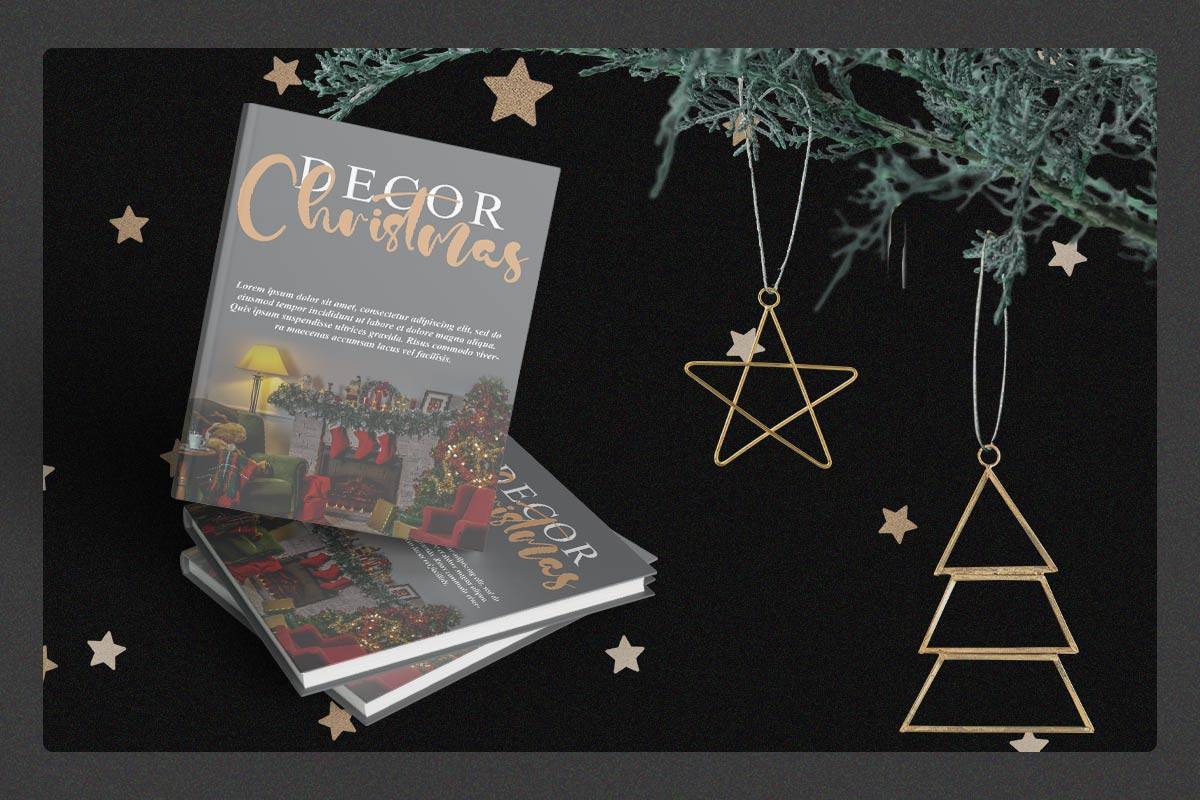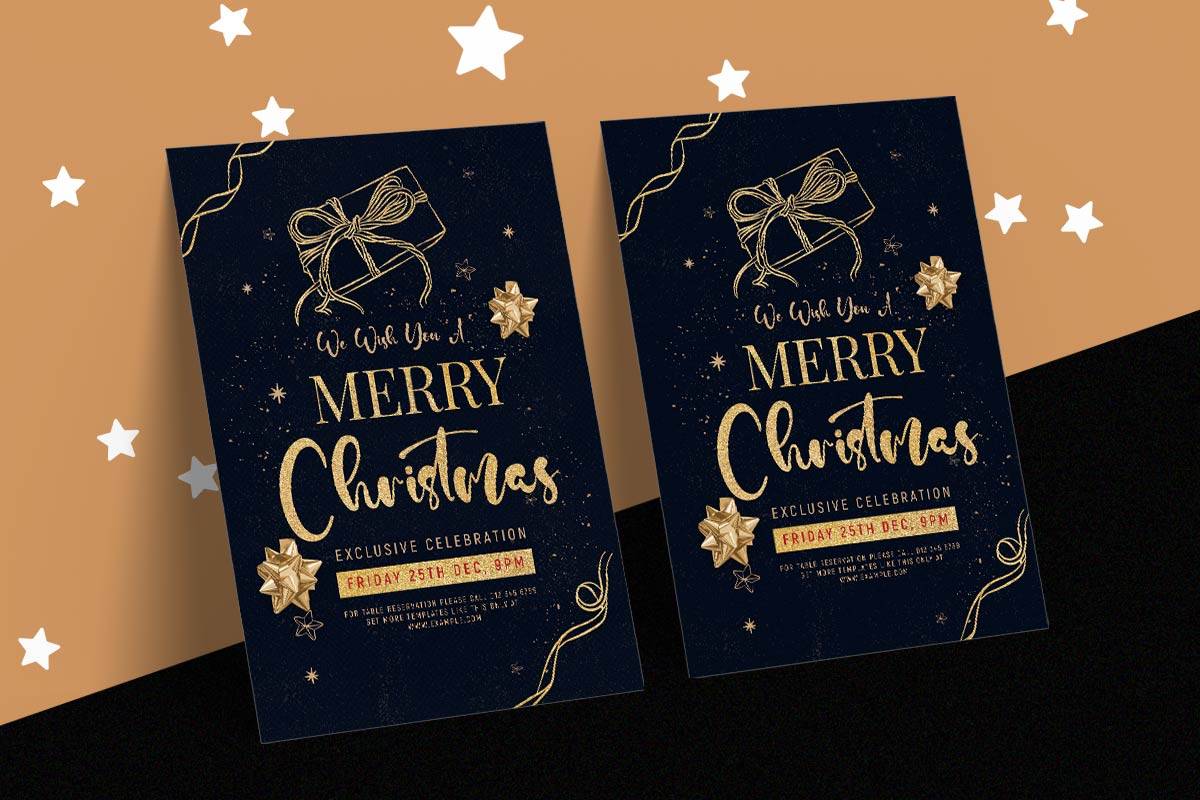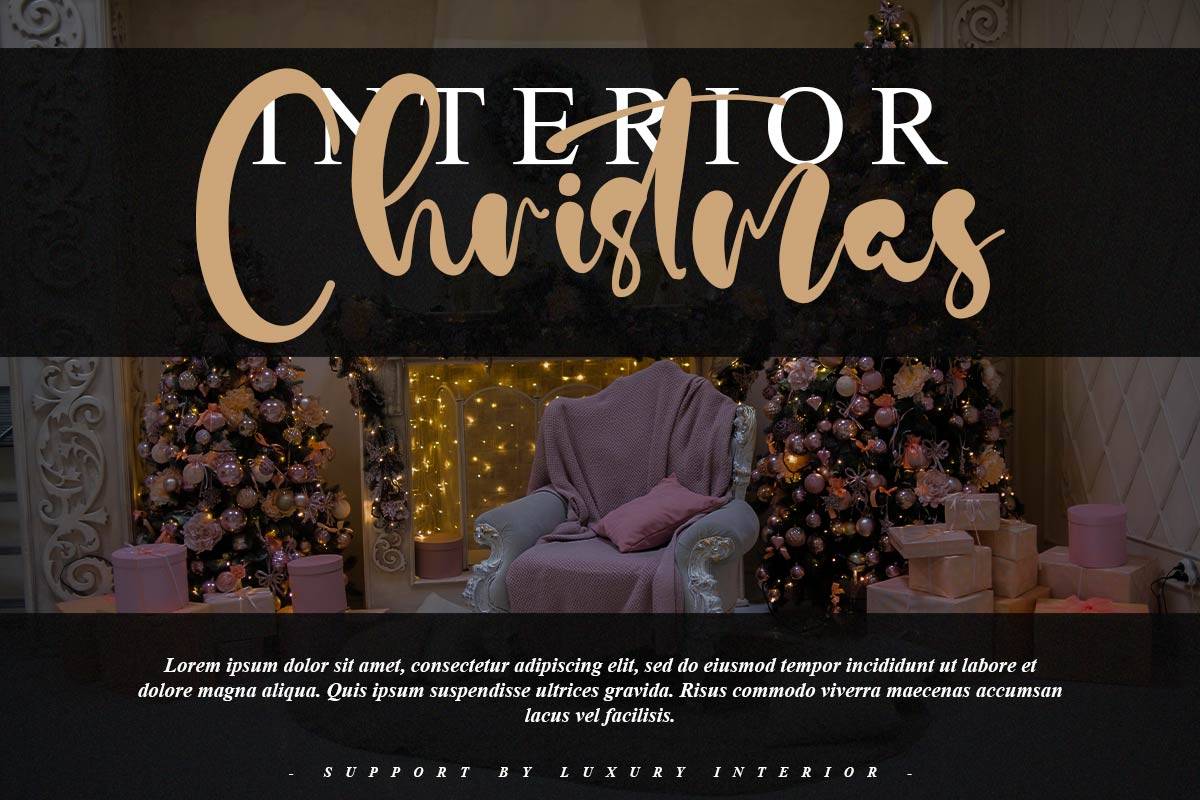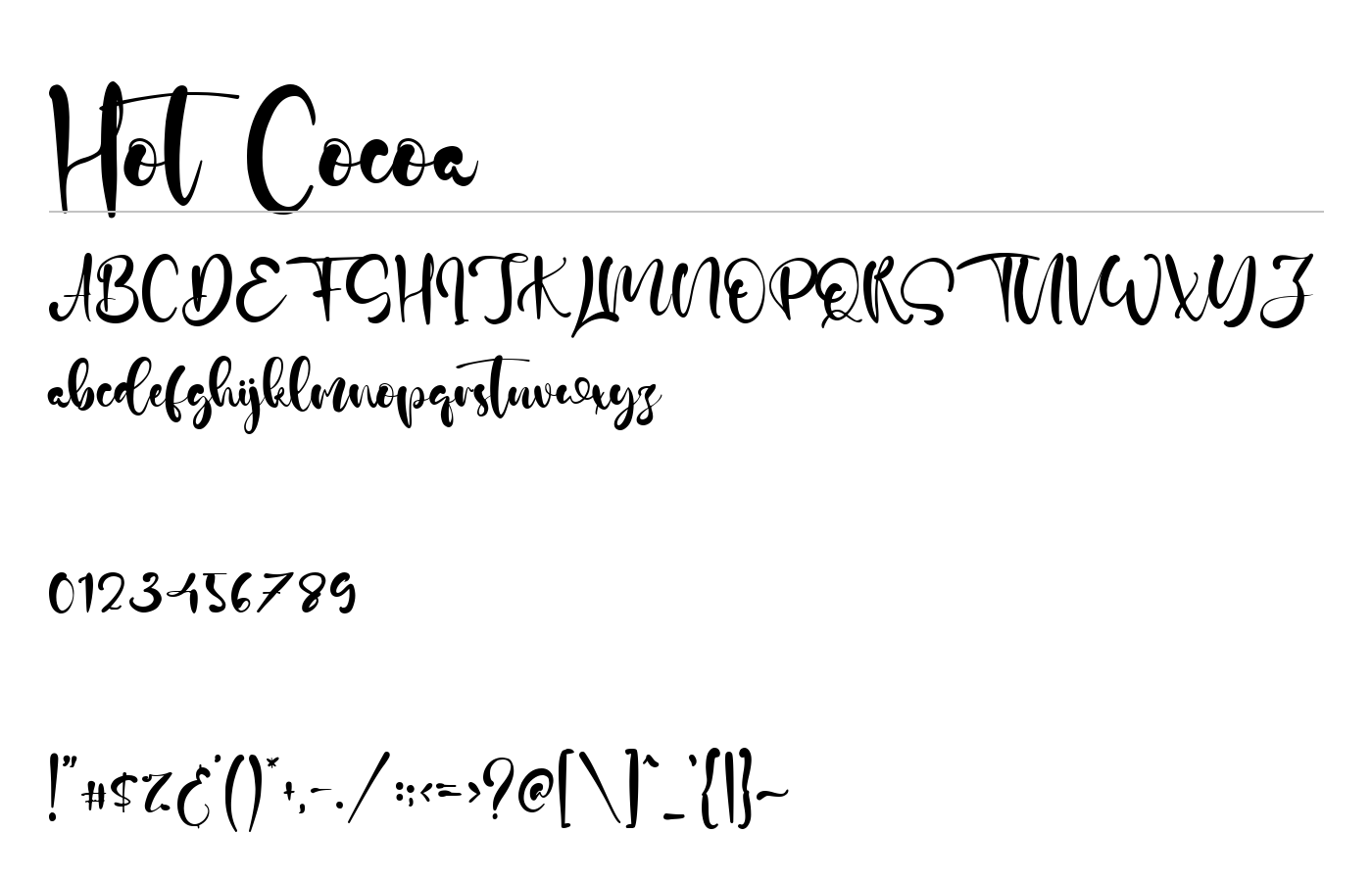
Hot Cocoa is a playful and elegant script font with a lively, hand-drawn feel. Its varied stroke widths and distinctive swashes give it a charming, whimsical personality, making it ideal for creative branding, invitations, and eye-catching headlines where a warm and approachable style is desired. This font works well in contexts that benefit from a personal, stylish touch without sacrificing readability.
Hot Cocoa Font
About Hot Cocoa Font
| Font family | Hot Cocoa Font |
| Designer | Staircase Studio |